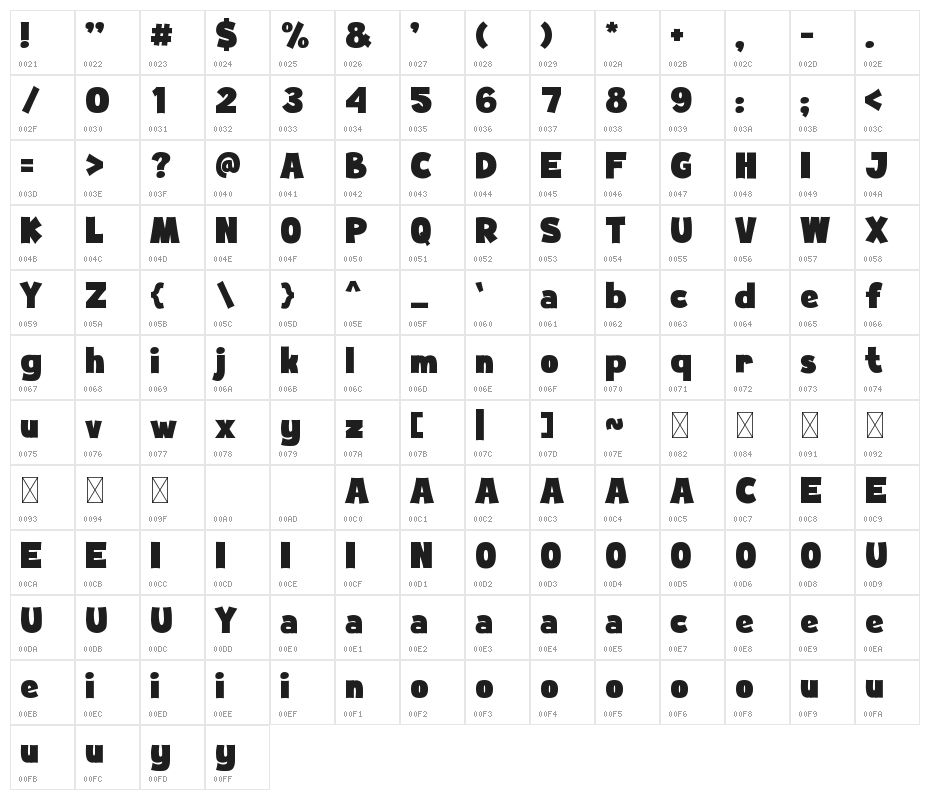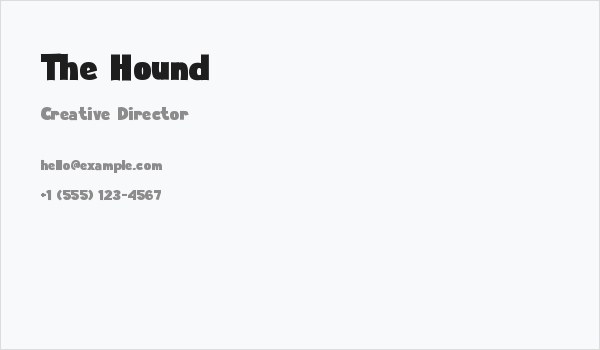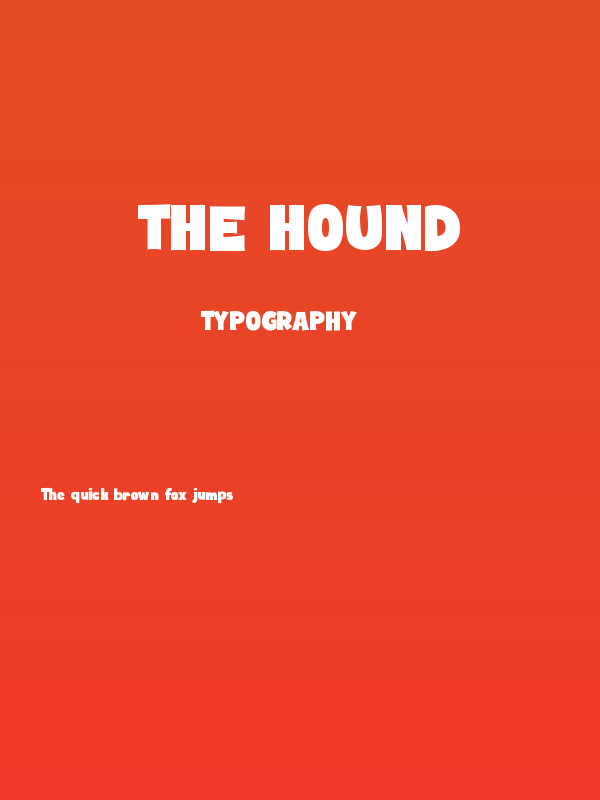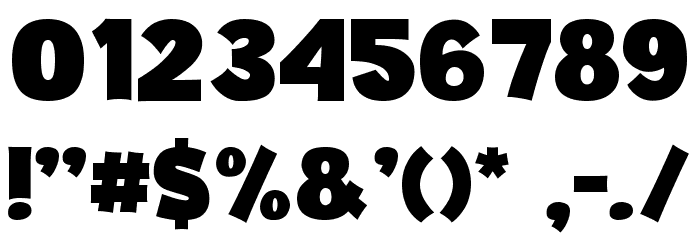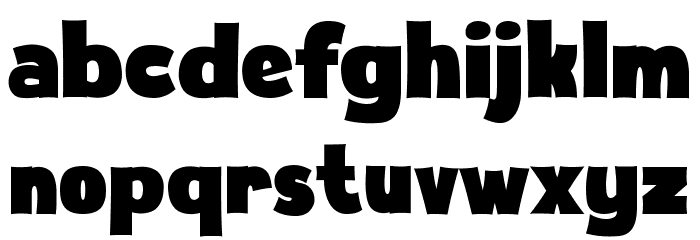
The Hound Font
The Hound Description
This bold and expressive font features thick, heavy strokes with a playful and dynamic appearance. The characters are slightly condensed, giving a compact feel while maintaining readability. The uppercase and lowercase letters share a consistent weight, contributing to a cohesive look. The numbers and special characters are equally bold, ensuring uniformity across all elements. The font's distinct style makes it ideal for attention-grabbing designs, with its exaggerated curves and angles adding a touch of whimsy. Its strong presence is perfect for making a statement in any creative project.
| Proposed Projects | Ideal for posters, headlines, logos, and branding materials that require a strong visual impact. |